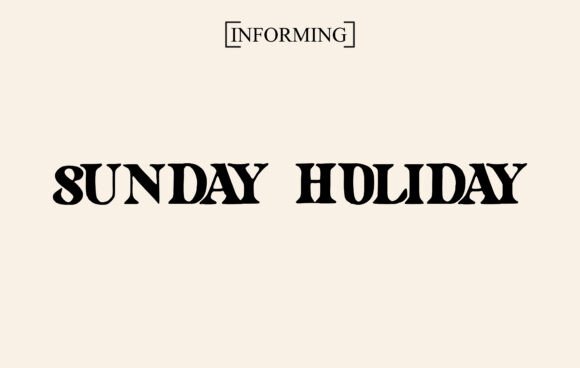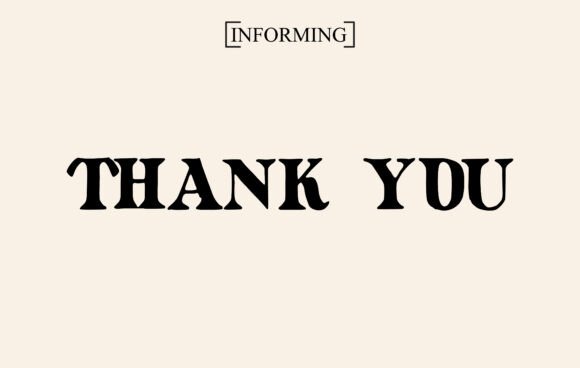
The Blessed Vibe Font: Elevate Your Designs with Elegance and Versatility
Have you ever been in the middle of a design project, and suddenly, you’re stuck on finding the perfect font? I recall a recent experience where I was working on a wedding invitation design, and my client requested a font that was both elegant and playful. After hours of searching, I stumbled upon the Blessed Vibe Font, which instantly became my go-to choice. In this article, I’ll share my journey with this beautiful font, its features, and how you can make the most of it in your designs.
An Honest Review of Blessed Vibe Font
What I Love About Blessed Vibe Font
• ✨ Legibility: This font is incredibly easy to read, making it perfect for both title and body text.
• ✅ Versatility: Its clean and elegant design makes it suitable for a wide range of projects, from magazine headlines to social media graphics.
• 💕 Aesthetic Appeal: The font’s unique style adds a touch of sophistication and charm to any design.
While the Blessed Vibe Font is exceptional, there are a few minor considerations to keep in mind:
• 🤔 Limited Condensed Styles: The font might not have as many condensed styles as some other fonts, which could limit its use in very specific design scenarios.
• ⚠️ Glyph Limitations: As with any font, there might be limitations in the number of glyphs or special characters available, which could impact its use in multilingual projects.
The Backstory of Blessed Vibe Font
The Blessed Vibe Font was created with the intention of providing designers with a versatile and elegant typeface that could elevate their projects. Inspired by classic fonts with a modern twist, the designer aimed to craft a font that was both timeless and trendy. The result is a font that exudes charm and sophistication, making it perfect for a wide range of design applications.
Q: Is Blessed Vibe Font suitable for body text?
A: Absolutely! Blessed Vibe Font is designed to be legible and works well for both title and body text, making it a great choice for articles, blog posts, and more.
Q: Does Blessed Vibe Font support OpenType features?
A: Yes, Blessed Vibe Font supports OpenType features, including ligatures and stylistic alternates, which can add a unique touch to your designs.